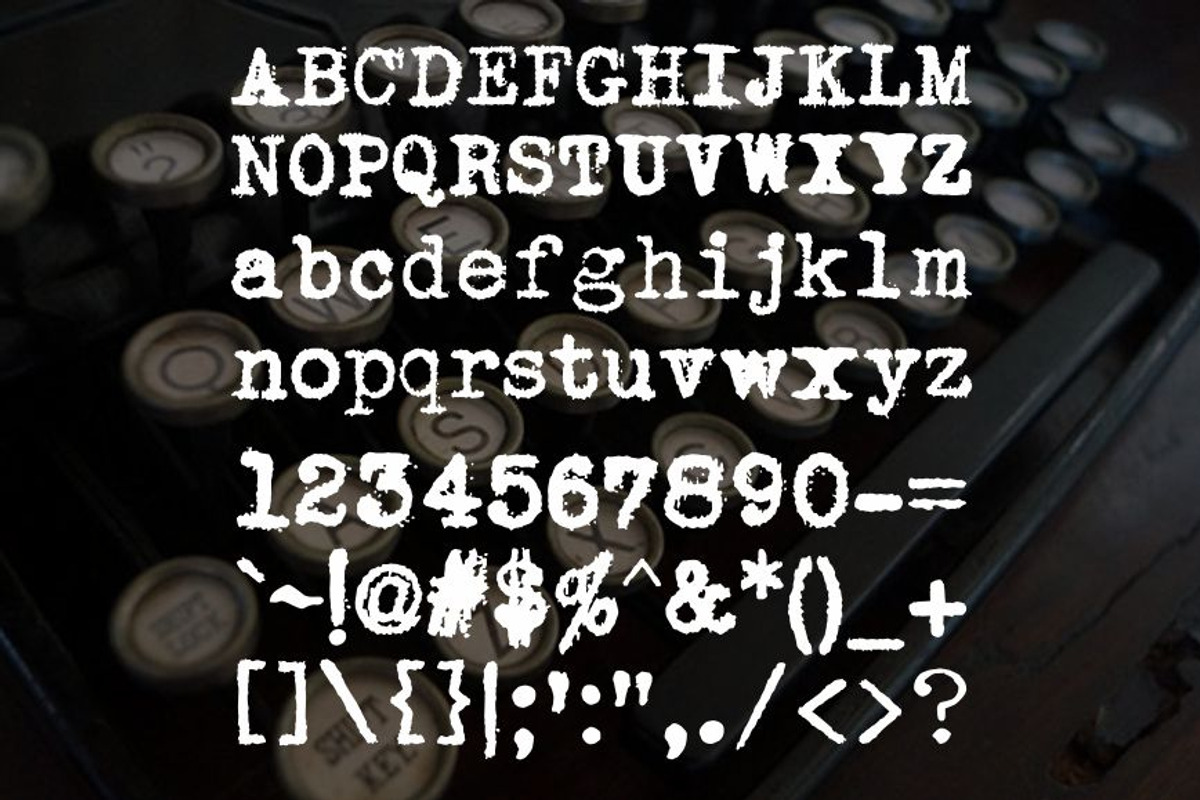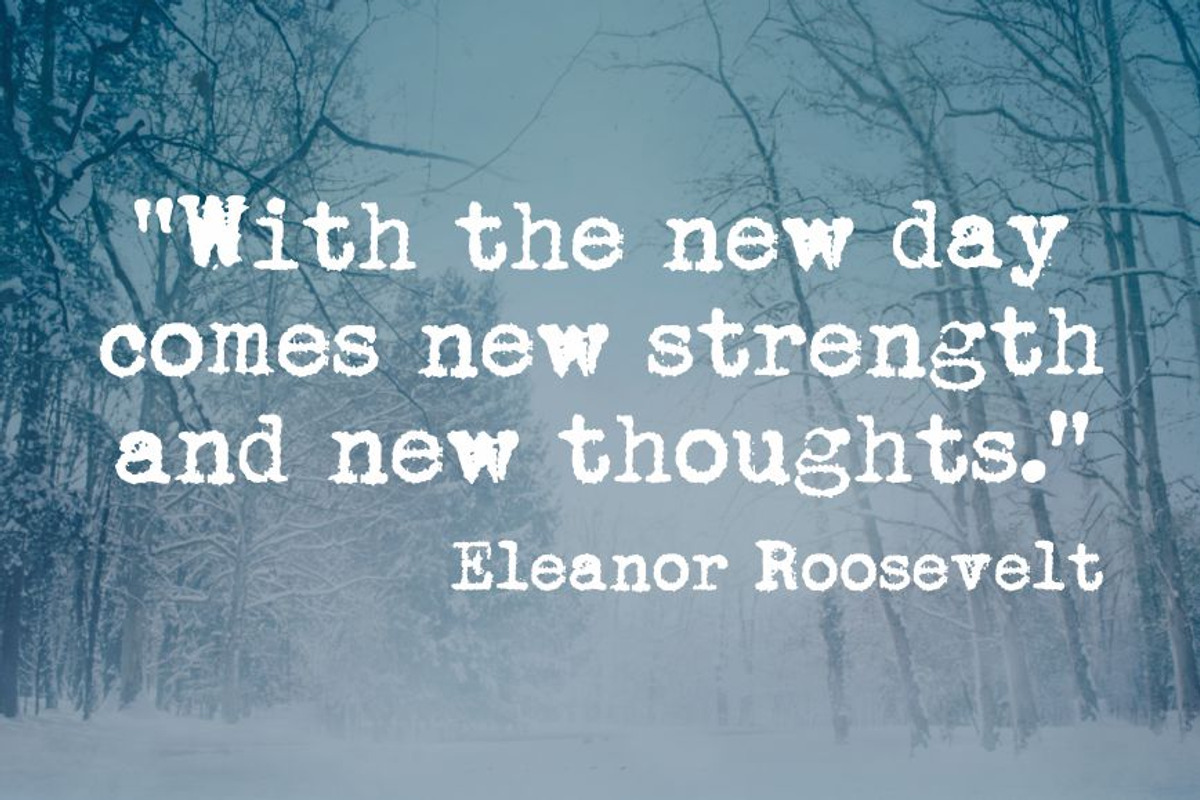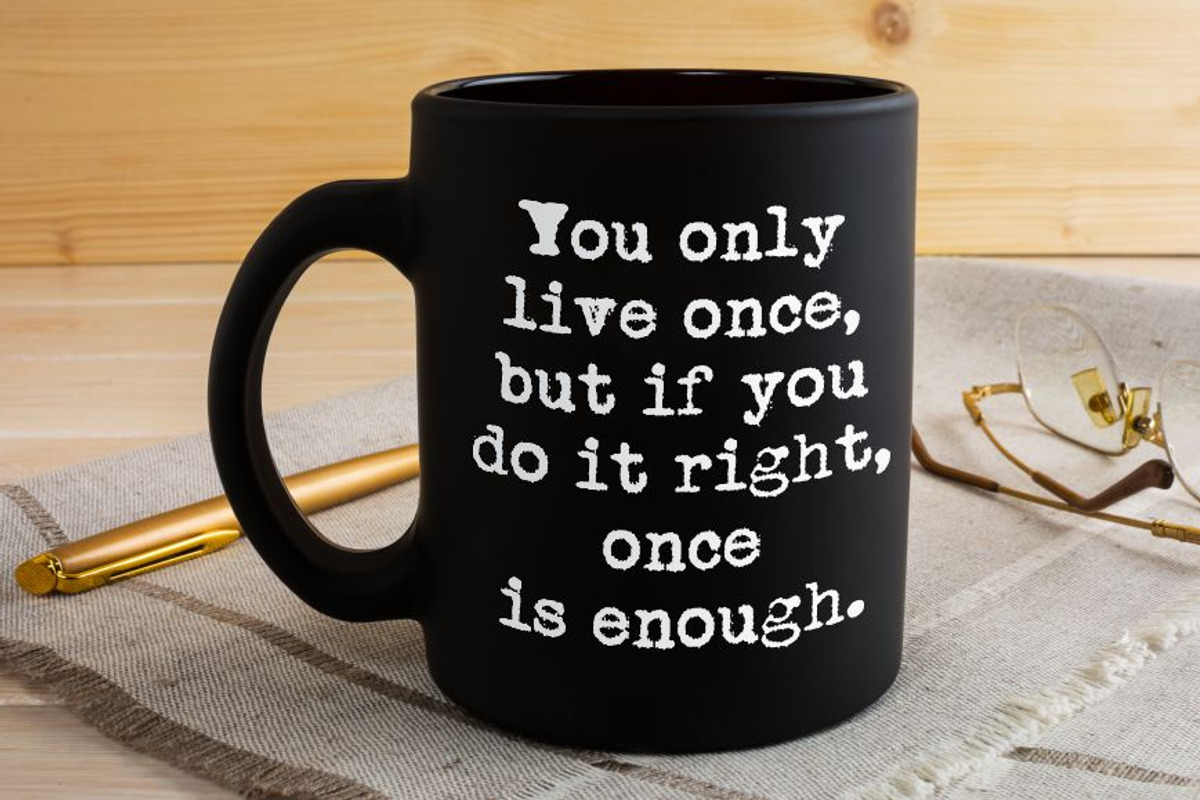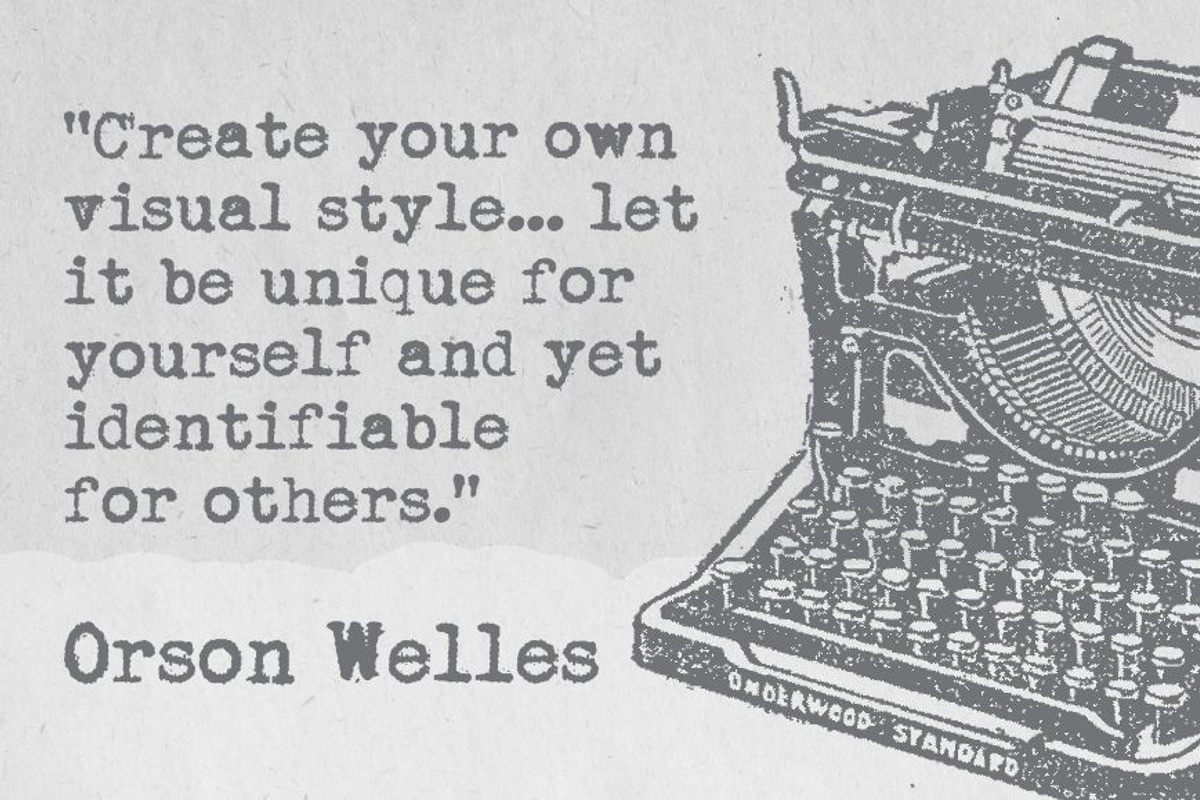
Joe Underwood Typewriter Font
Joe Underwood Typewriter Font by Fontastic Ventures is a font selected for branding, posters, packaging, typography.
- Several characters were added to merge antique type to the modern world of digital fonts.
- Joe Underwood has 130 characters including uppercase, lowercase, numerals, special characters such as the Euro, bitcoin, trademark, copyrigh
Why Joe Underwood Typewriter Font is worth a look
Joe Underwood Typewriter Font by Fontastic Ventures fits naturally into Branding, posters, packaging, typography.